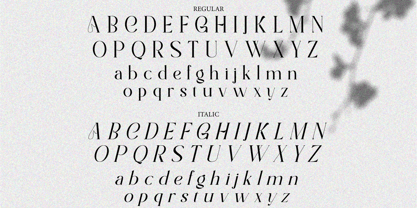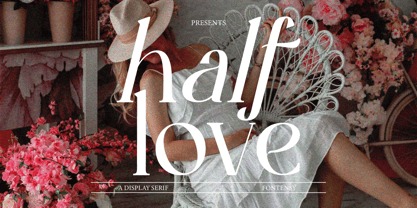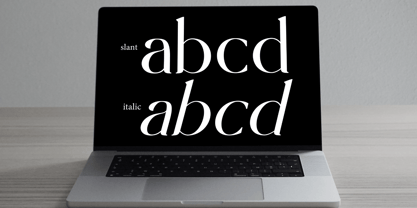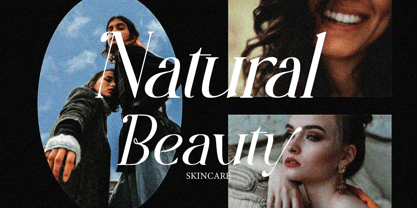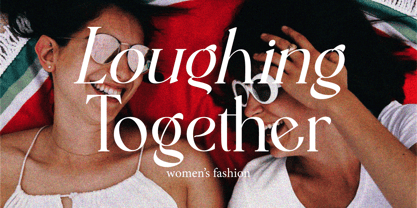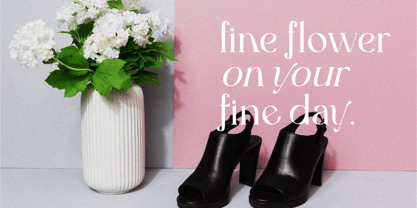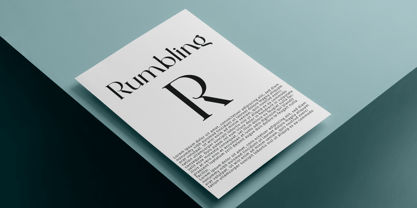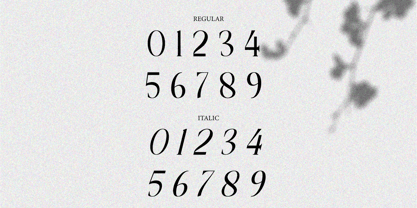
Half Love
by Cut Story
The Half Love Font Family was designed by Ramadhana and published by Cut Story. Half Love contains 2 styles and family package options. More about this family
I'm present to you, new retro serif called Half Love!
Half Love is a stylish font that is both retro and bold font. It's thick curves give a 70s groovy vibe with the serifs bringing it slightly back to traditional
Half Love fits perfectly into those nostalgic moodboards and vintage logos. It come with a unique lower and uppercase plus numbers, punctuation & multilingual letters.
Designers: Ramadhana Ramadhana
Foundry: Cut Story